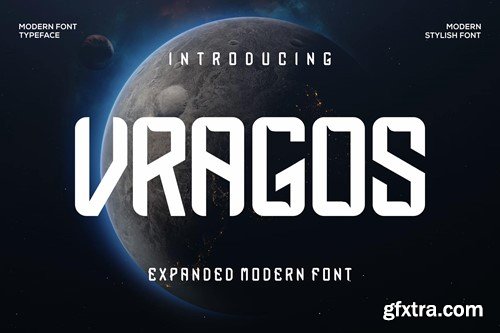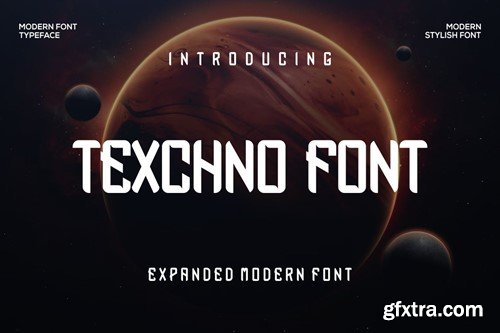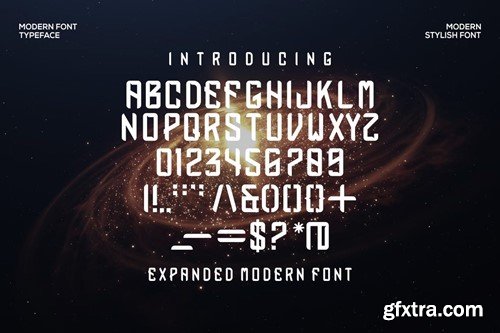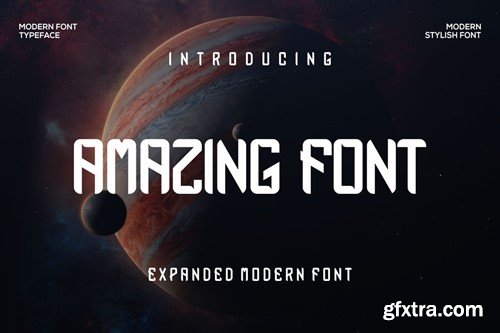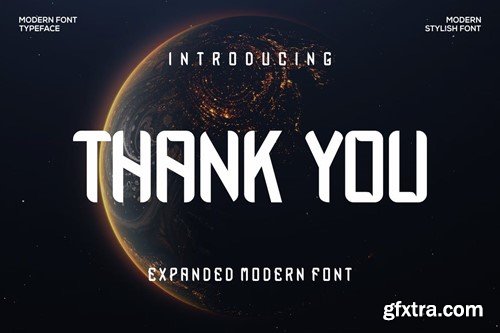
Vragos Font
Introducing our new product Vragos Font - Modern Fonts Vragos Font - Modern Font is a bold and authentic display font. This font is suitable for any branding projects such as logos, esport and more. extraordinary in many contexts. available *otf *ttf